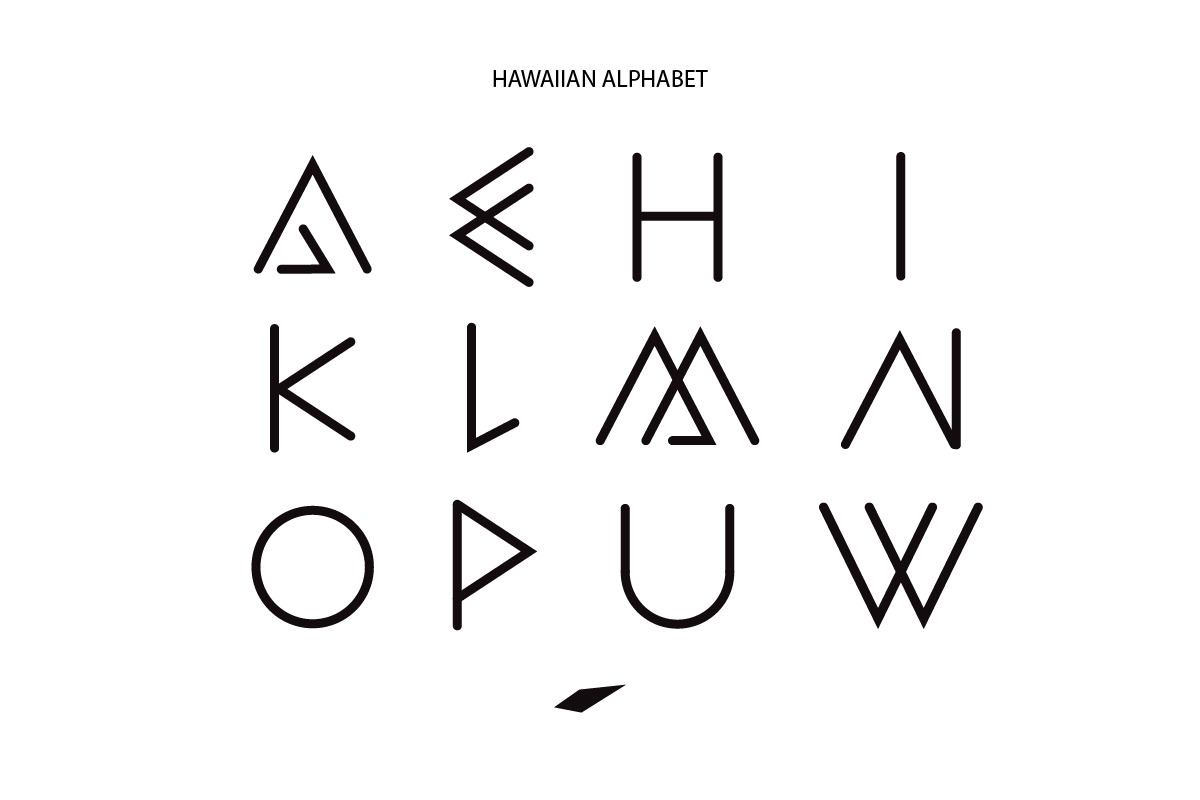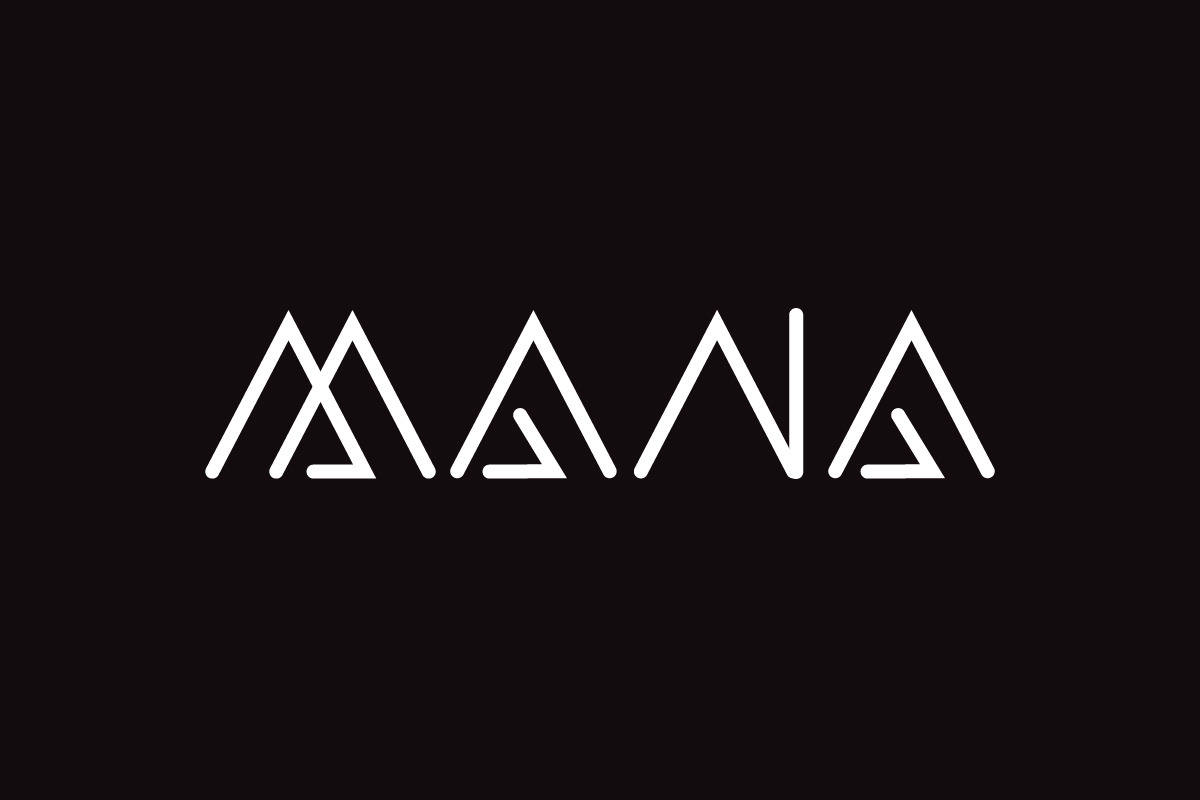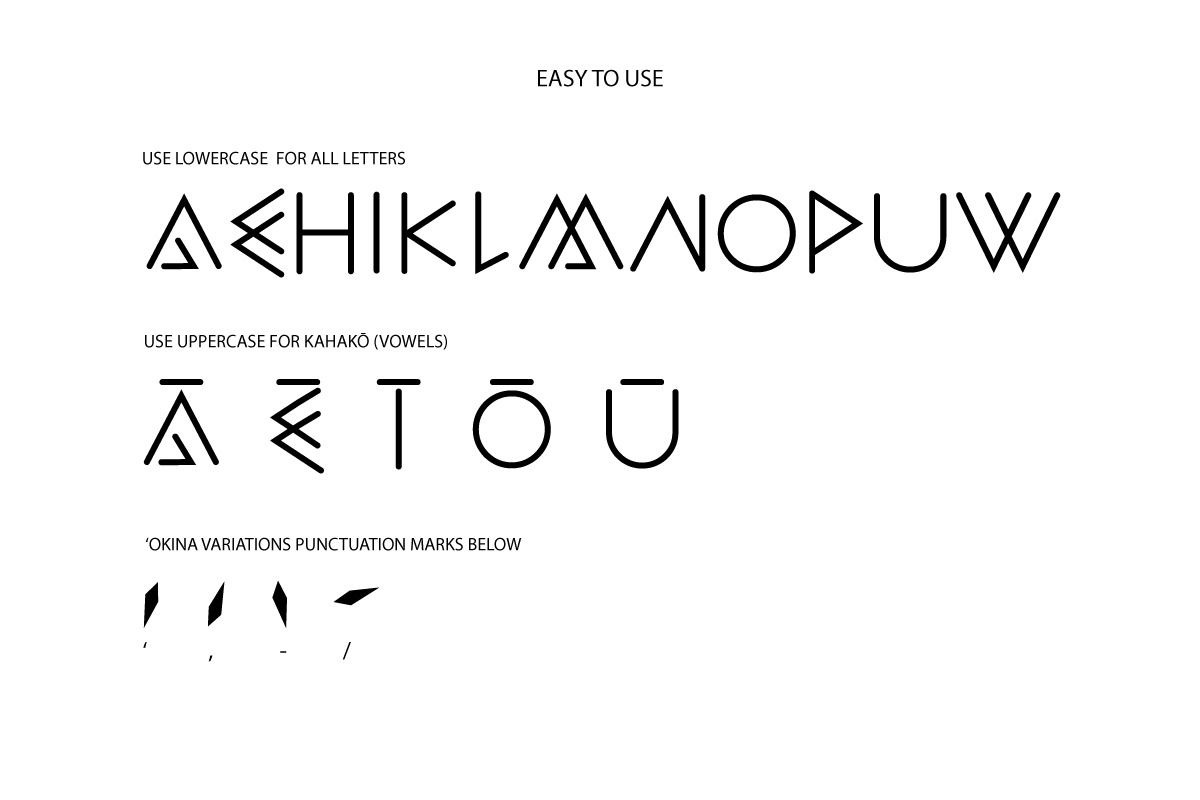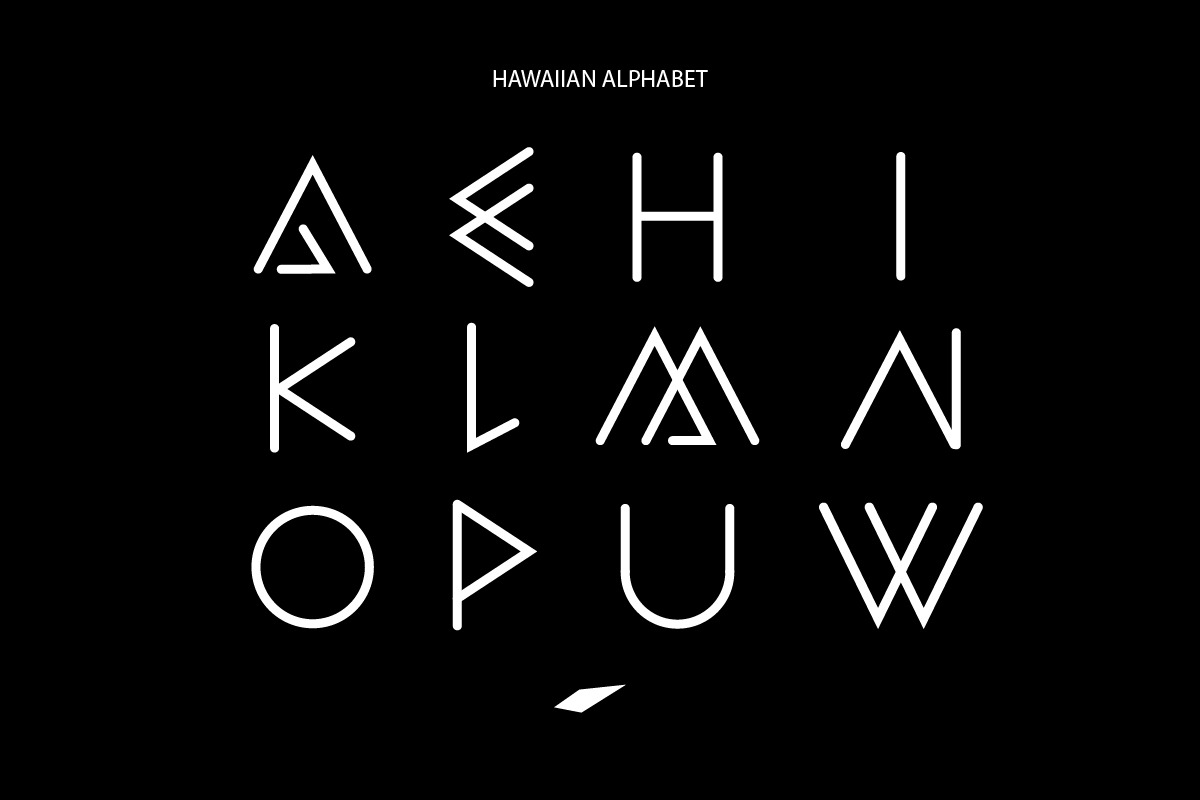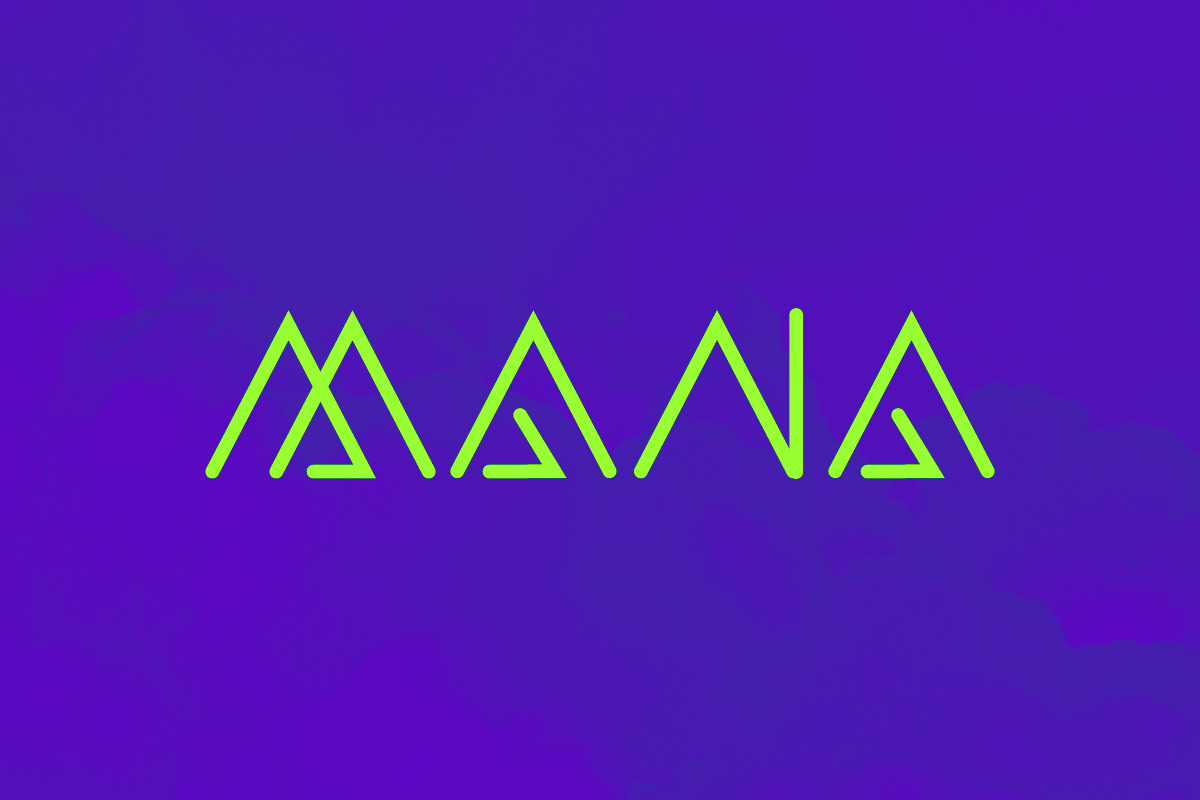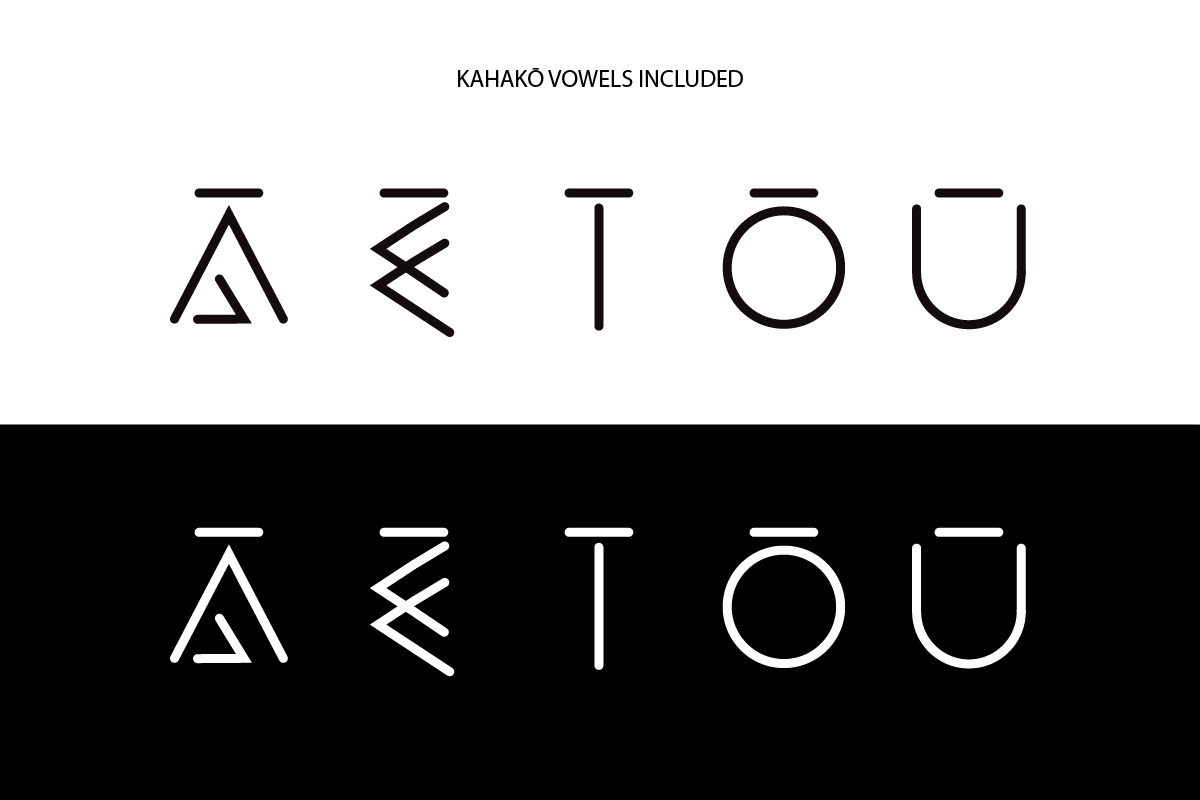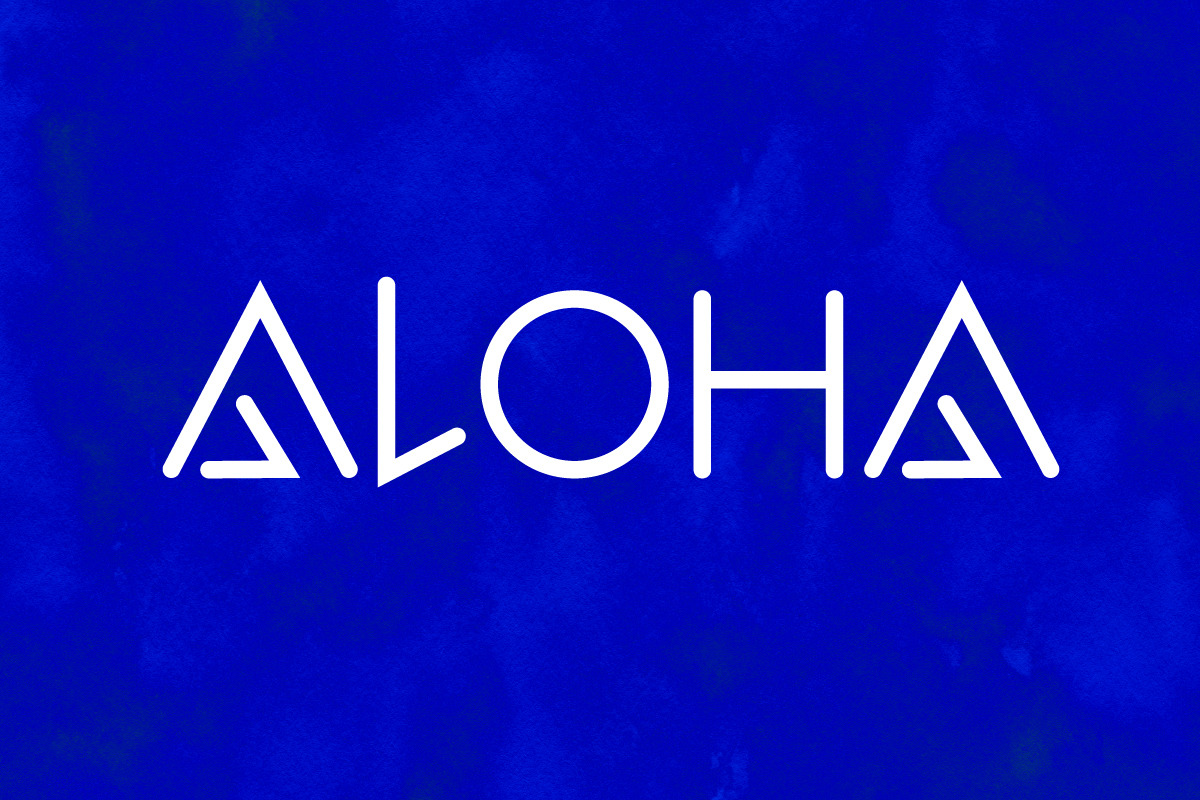
MANA | Hawaiian Alphabet Font
MANA is a modern geometric font inspired by Polynesian culture.
The lowercase has all the letters in the Hawaiian Alphabet, and the Uppercase includes the Kahakō (vowels) and there's also variations of the 'Okina letter.
Font does not have all Latin characters or multi-language support at this time, only Hawaiian Alphabet ( A, E, H, I, K, L, M, N, O, P, U, W, ' )